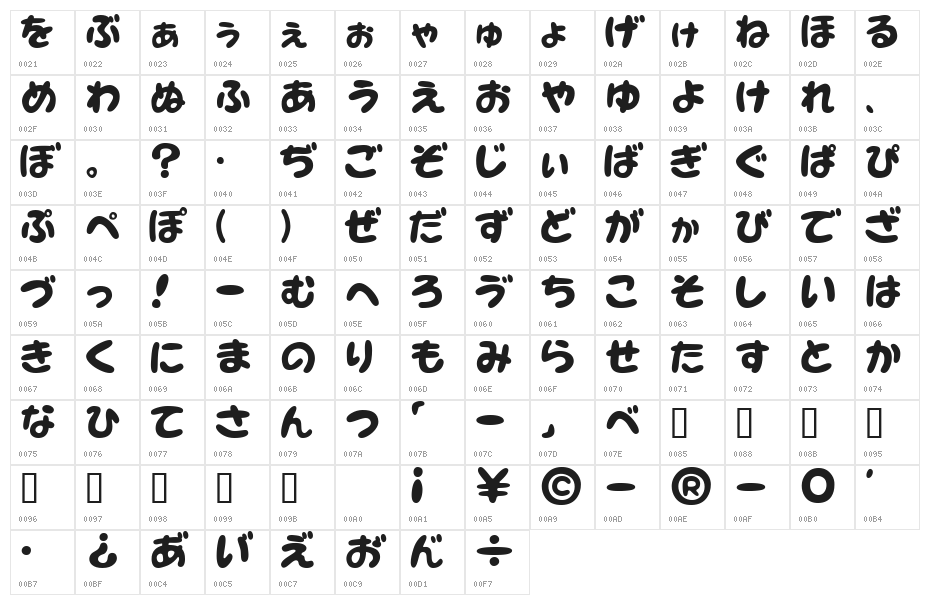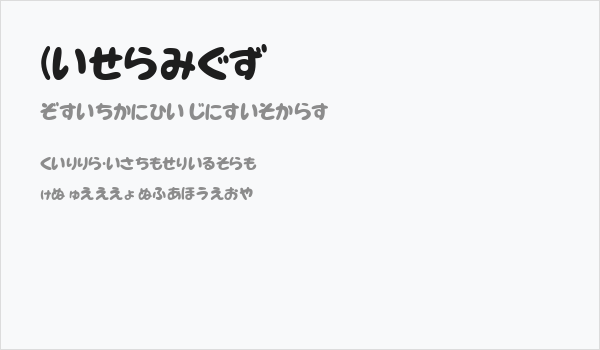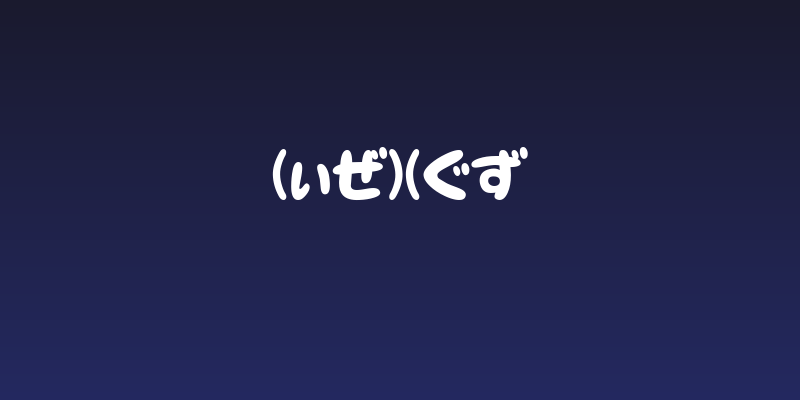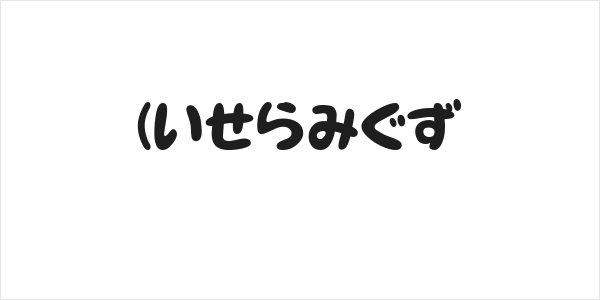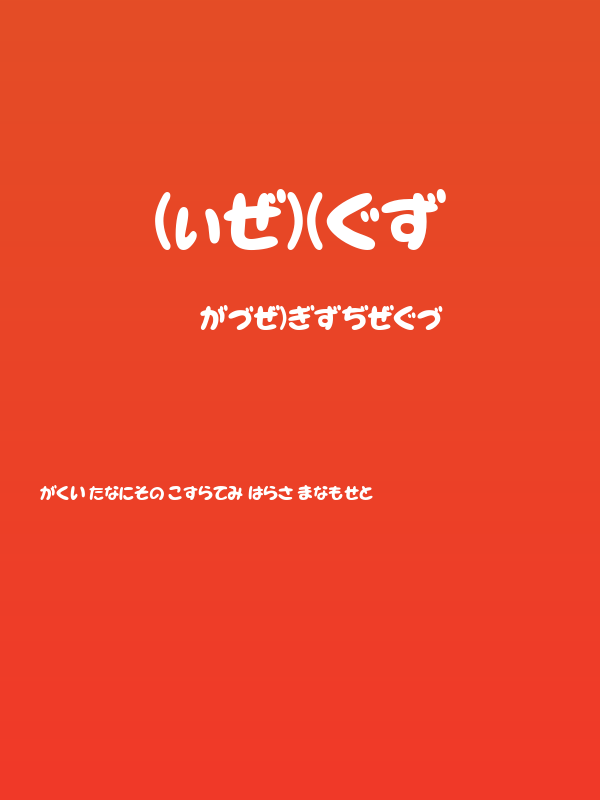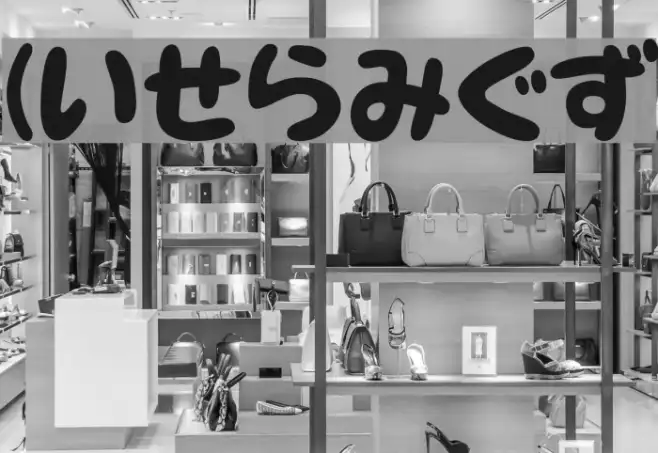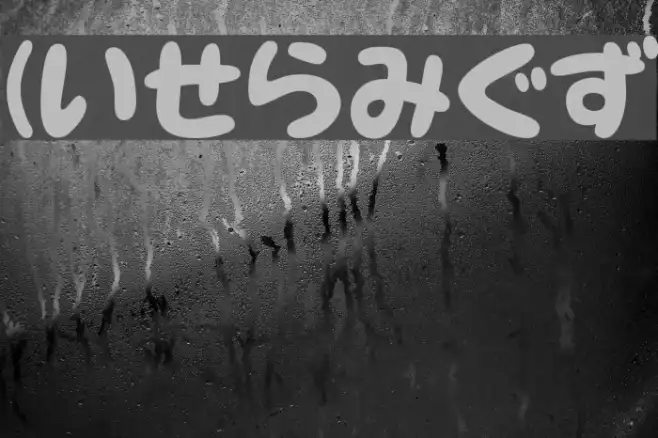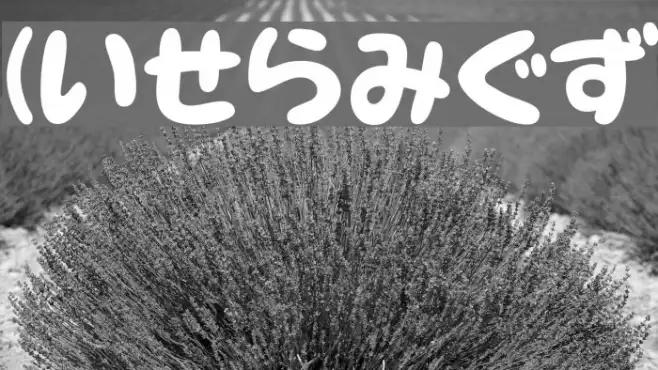
NeponHR Font
NeponHR Description
This font features a playful and bold style, characterized by its rounded and thick strokes. The characters are designed with a bubbly appearance, giving them a friendly and approachable look. The font maintains a consistent weight throughout, ensuring readability while adding a touch of whimsy. The spacing between characters is relatively tight, which enhances the compact and cohesive feel of the text. This style is particularly effective for creating a casual and inviting atmosphere, making it suitable for a variety of creative projects.
| Proposed Projects | Ideal for children's books, playful branding, casual invitations, and creative posters. |